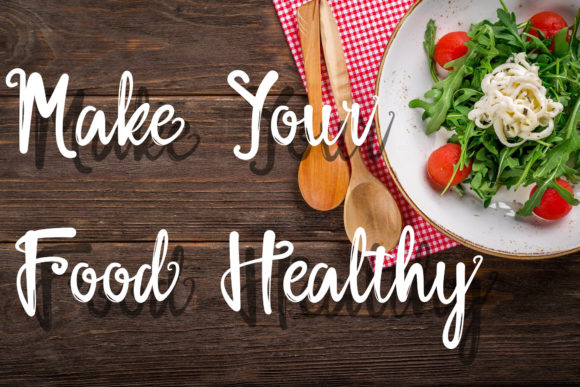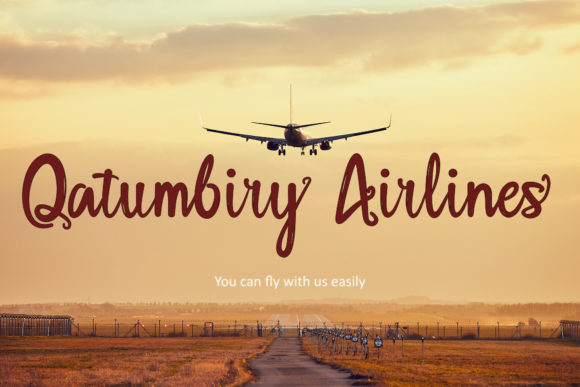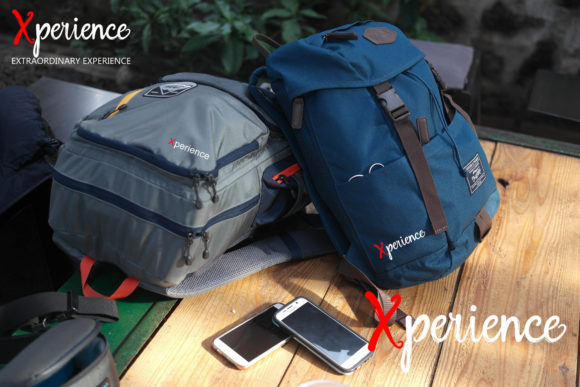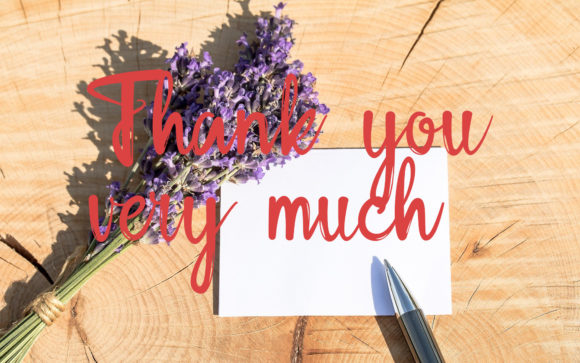
About Rolling Store Font
Introducing Rolling Store, an exquisite handwritten font that exudes beauty and charm. This font is a true work of art, masterfully crafted to blend its classy calligraphic influences with a modern and fresh touch. With Rolling Store, you’ll find yourself enamored by its elegance and captivated by its allure, making it an instant favorite for all your design projects. Prepare to elevate your creations to the highest levels of excellence with Rolling Store.
Rolling Store maintains a sense of timeless beauty, as if each stroke was carefully penned with the expertise of a seasoned calligrapher. Its flowing and elegant style adds a touch of refinement to your text, making it perfect for wedding invitations, love letters, inspiring quotes, and more.
The font’s versatility knows no bounds. As you fall in love with Rolling Store, you’ll discover how seamlessly it adapts to various design projects. Whether used for branding and logo design, social media graphics, blog headers, or digital artwork, Rolling Store’s charm enriches your creations with its exquisite appeal.
With Rolling Store, your projects gain access to a sophisticated collection of letters and characters. The font’s unique calligraphic influences and contemporary touch allow you to infuse your designs with a personalized and artful flourish.
In special moments and joyous occasions, Rolling Store becomes an enchanting choice. Imagine using it for wedding stationery, where the font’s elegance and grace set the perfect tone for a celebration of love and togetherness.
Moreover, in branding and logo design, Rolling Store shines brightly. Its calligraphic elegance creates a logo that exudes sophistication and sophistication, reflecting your brand’s identity with a touch of grace.
In the digital realm, Rolling Store brings an air of elegance to social media graphics and blog headers. Its flowing lines and contemporary charm draw viewers in, making your online presence stand out with a modern and fresh appeal.
In longer passages, Rolling Store maintains its legibility, making it a valuable asset for editorial designs like books, magazines, and brochures. Its smooth flow ensures that readers can comfortably immerse themselves in the written words, enjoying every nuance and detail.
In conclusion, Rolling Store is more than just a font; it’s an exquisite blend of classic calligraphy and contemporary style. With its masterful design, Rolling Store becomes a true favorite for all your design endeavors. Embrace the beauty and charm of Rolling Store and watch as your projects flourish with elegance and allure. Let your creativity soar in the exquisite embrace of Rolling Store, the handwritten font that defines excellence.